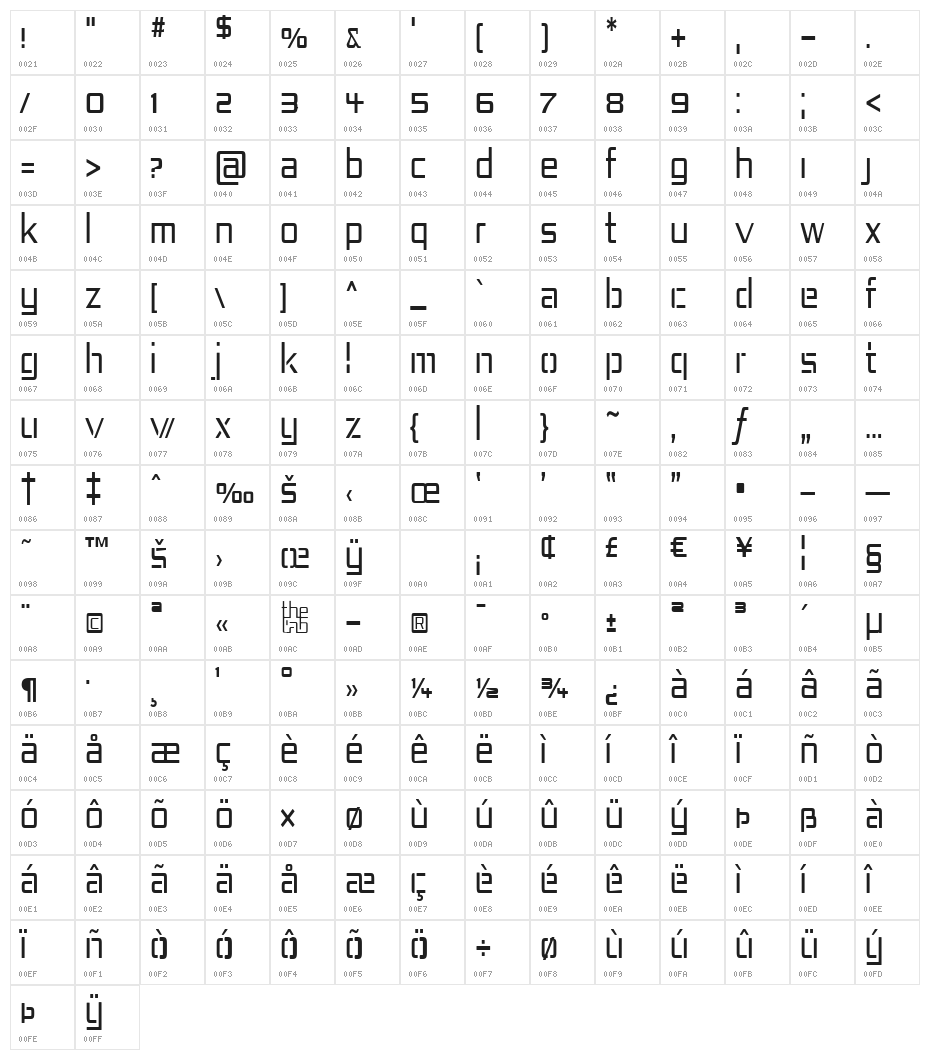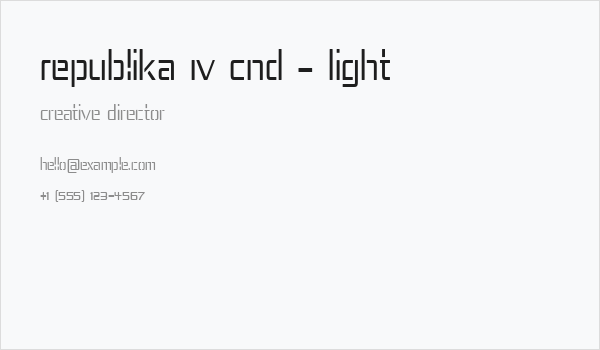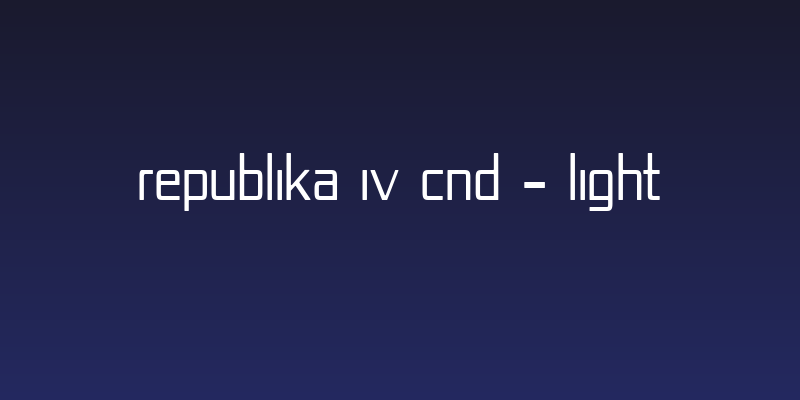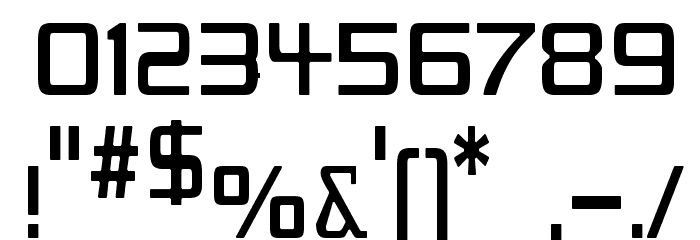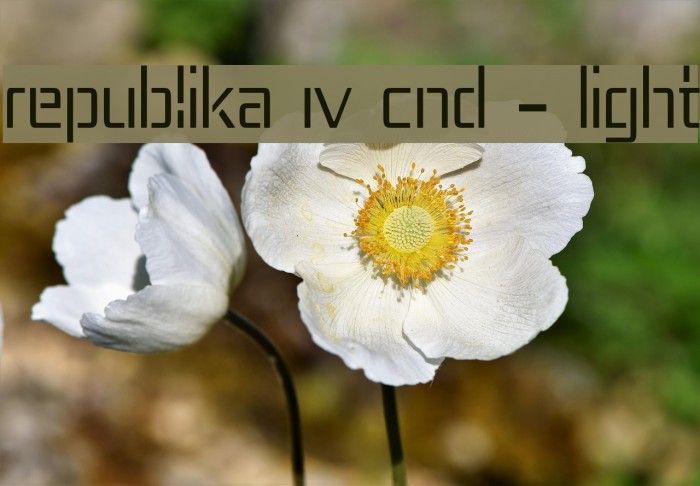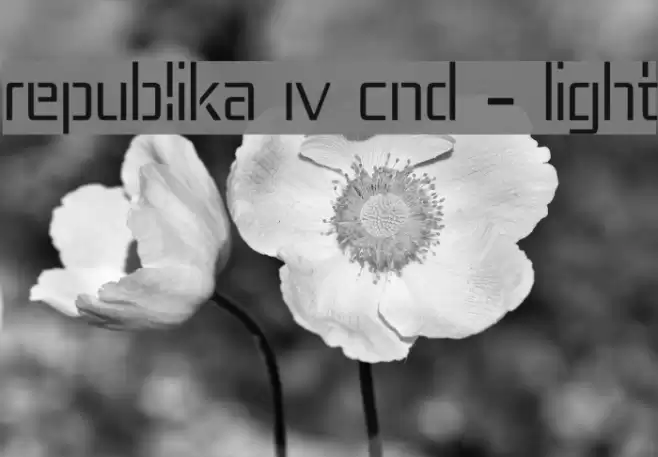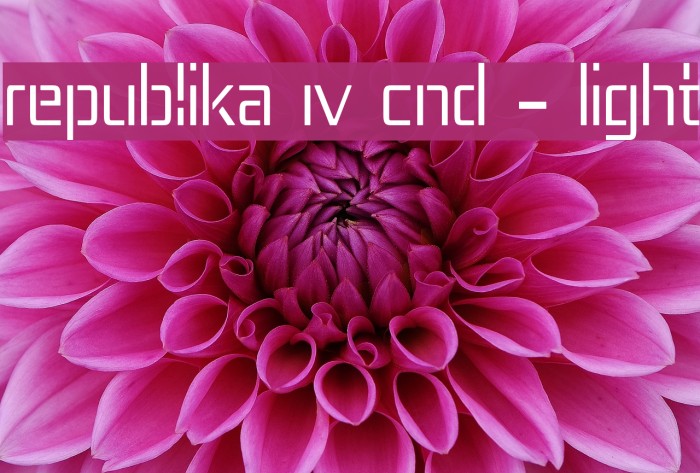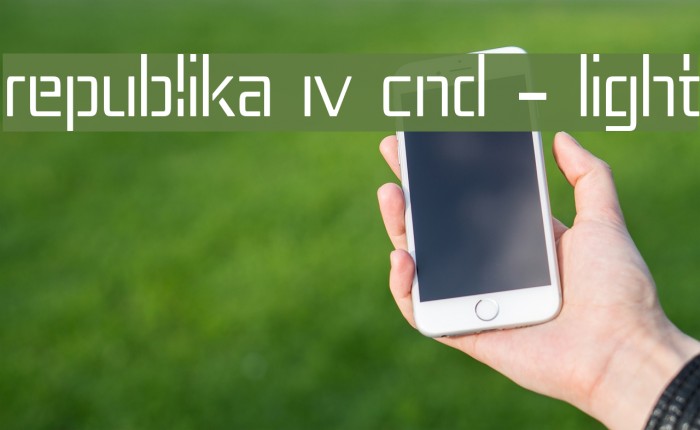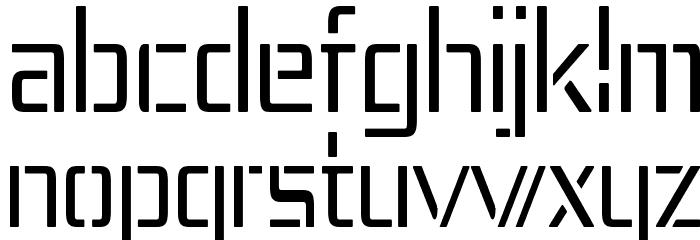
Republika IV Cnd - Light Font
Republika IV Cnd - Light Description
This font presents a modern and sleek design with a geometric structure. The characters are uniform in height and width, creating a clean and organized appearance. The strokes are consistent in thickness, contributing to a low contrast look. The font features rounded edges and a condensed form, making it suitable for compact spaces. Its contemporary style is enhanced by the minimalistic and straightforward design, which is both functional and aesthetically pleasing. The font's clarity and simplicity make it versatile for various applications, maintaining readability even at smaller sizes.
| Use Case | Logos, Headlines, Web design |
| Proposed Projects | Ideal for tech branding, modern web design, app interfaces, and minimalist posters. |